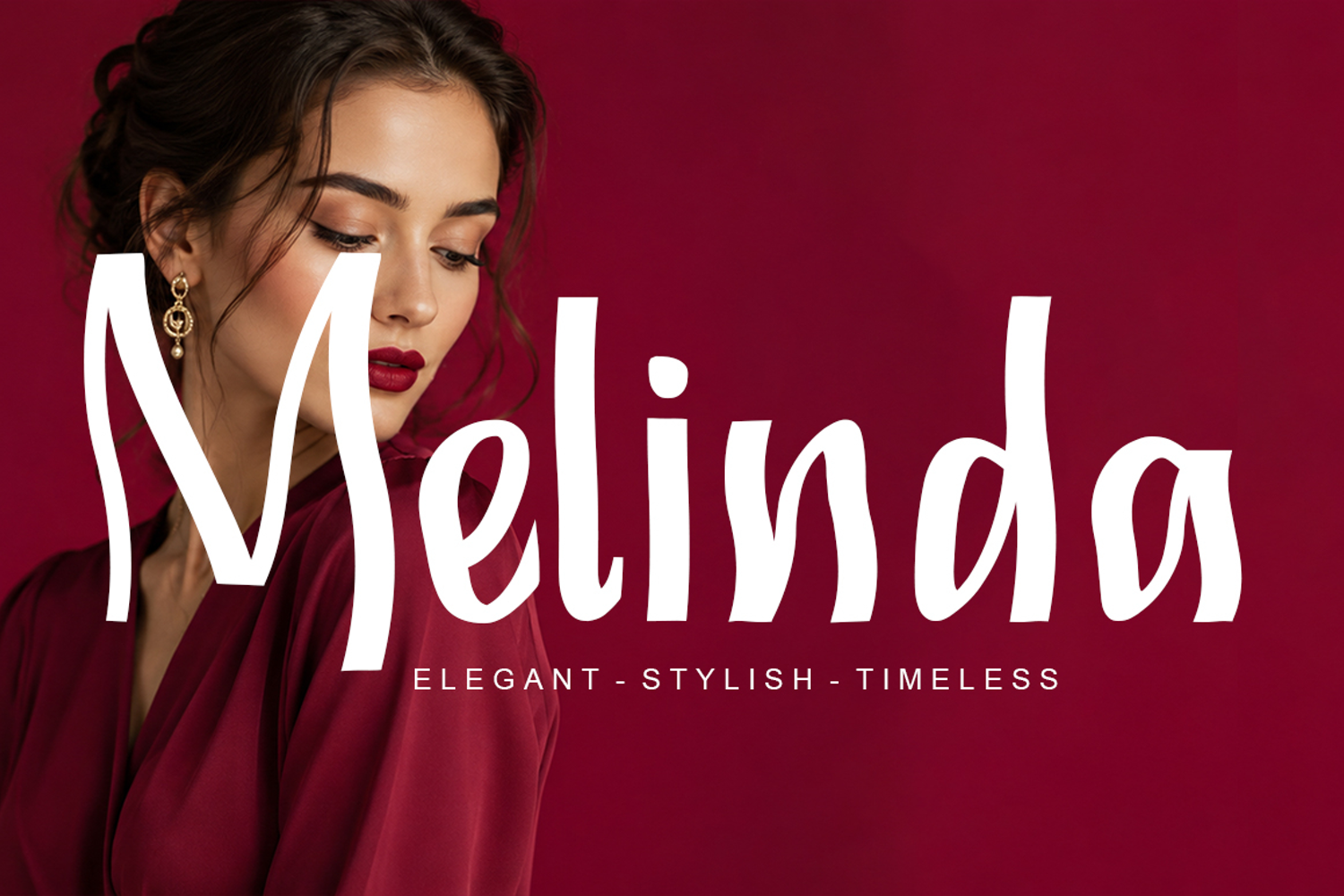
Melinda is an elegant and stylish display font designed to bring a sophisticated, feminine, and timeless touch to your creative projects. With its distinctive letterforms and graceful appearance, Melinda is perfect for fashion branding, beauty products, luxury logos, invitations, editorial designs, packaging, social media graphics, and more.
Its bold yet elegant character makes it stand out beautifully in both large headlines and branding applications.
Fashion & luxury branding
Beauty & skincare
Logo design
Perfume packaging
Wedding invitations
Editorial design
Boutique branding
Social media
Posters & advertisements
Product packaging